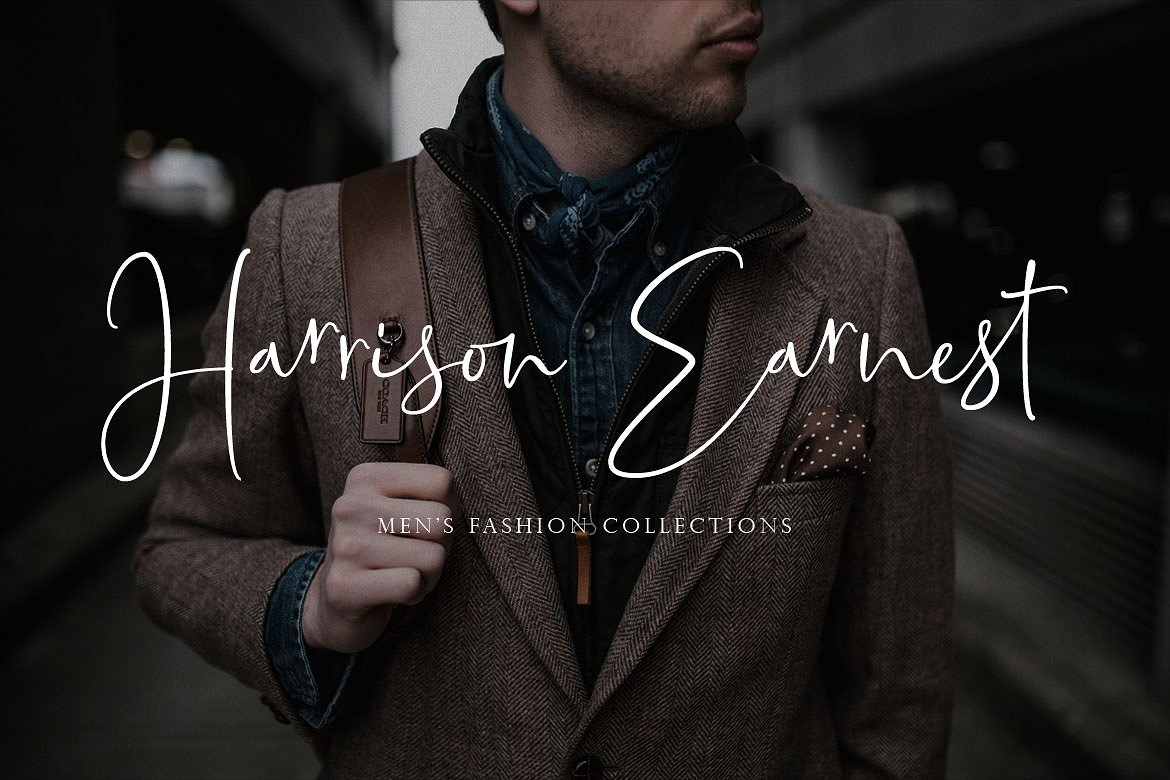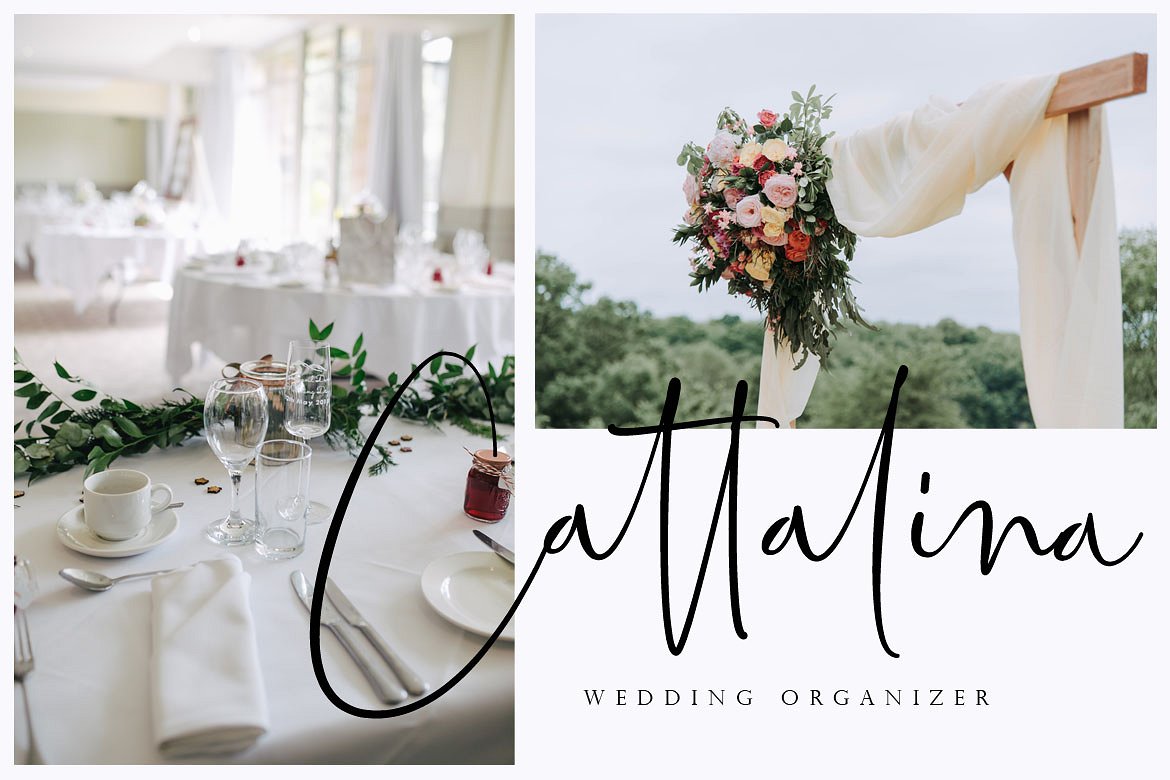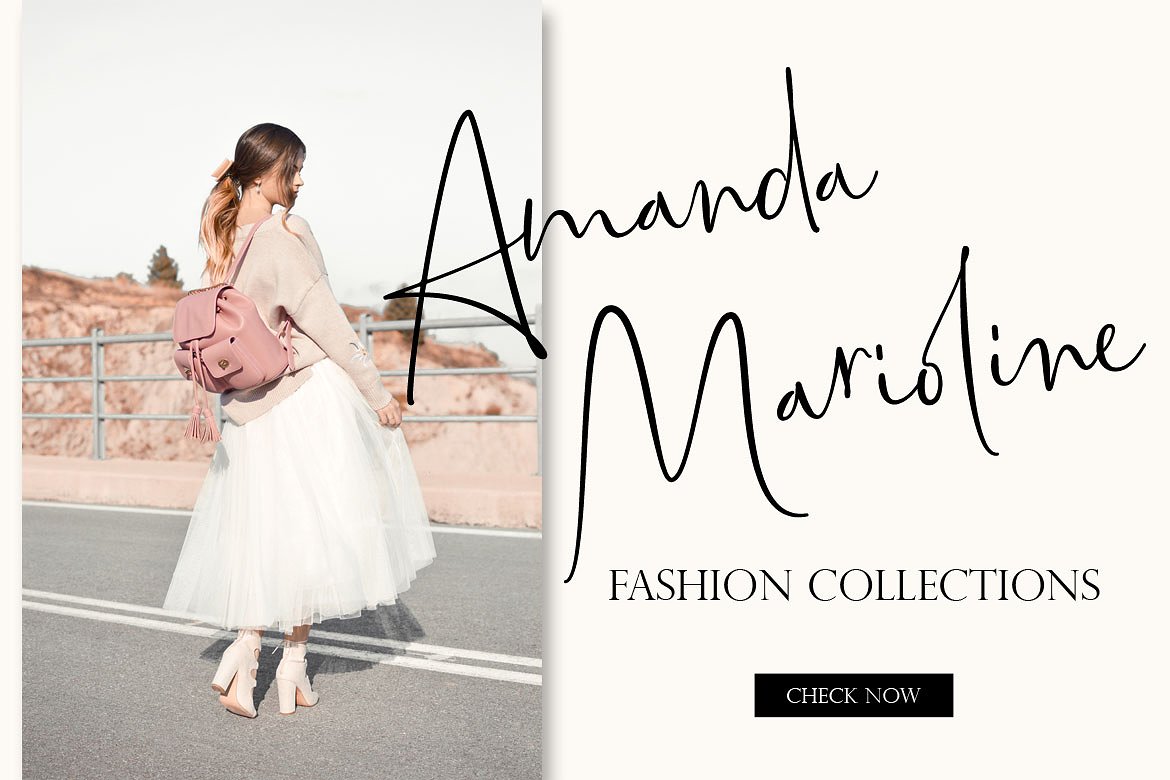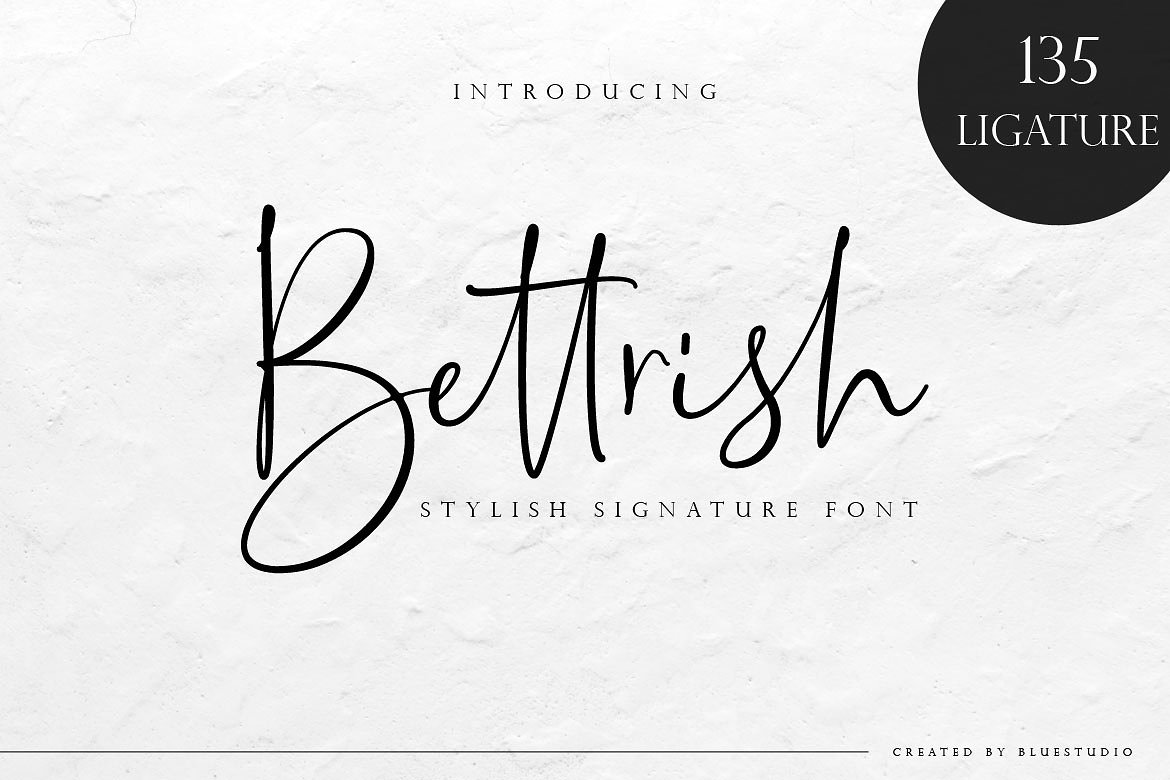
Bettrish Signature Font
Hello!! Proudly present Bettrish Script is the latest and most amazing Realism Signature font, designed to create beautiful typhography or lettering. Bettrish is made to resemble hand scratches, so it looks like a natural style like your own hand scratches. Bettrish offer beautiful typographic harmony for a variety of design projects, including logos & amp,branding, wedding designs, social media posts, advertisements, product designs, magazines and others.